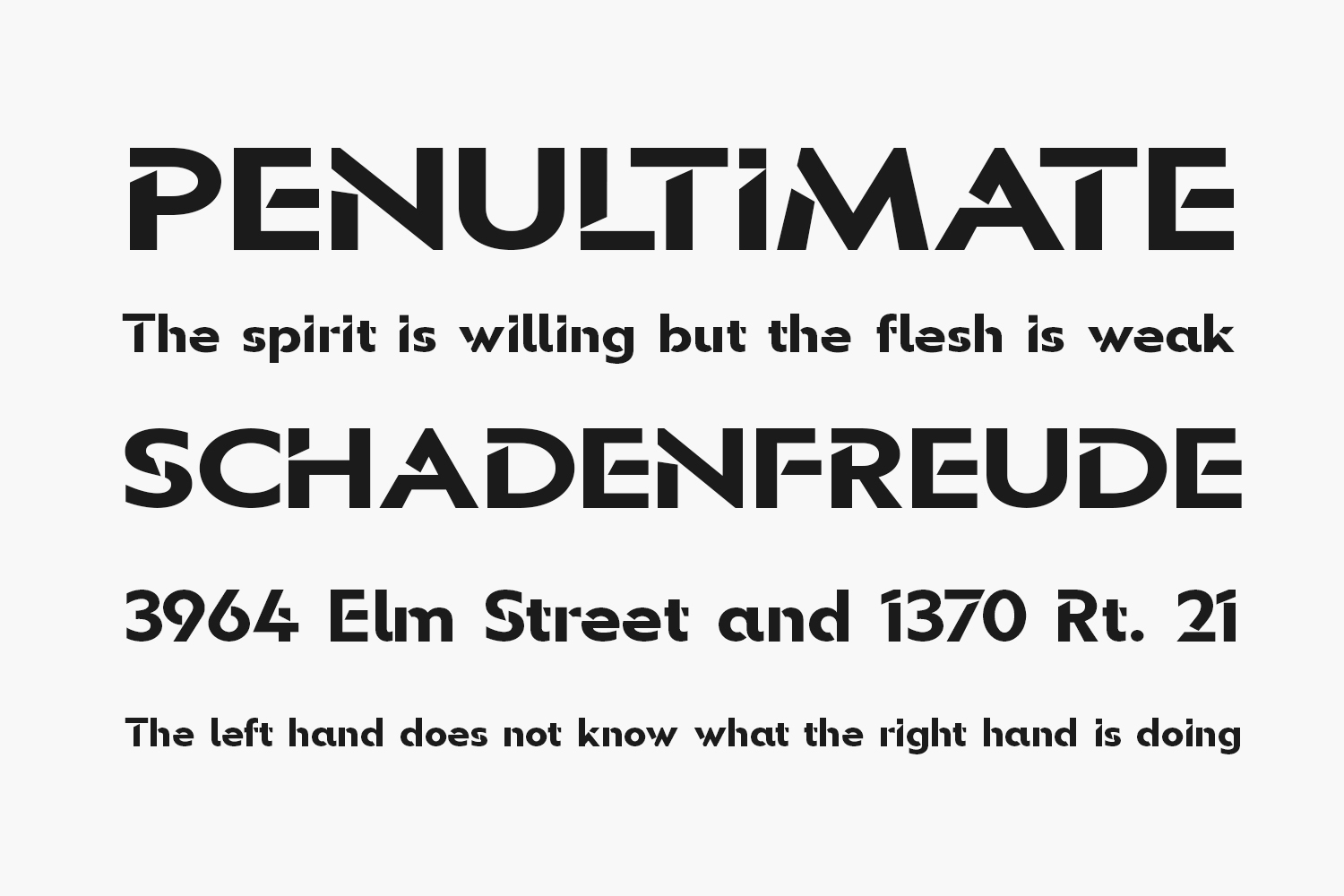
Multiple Ranges Free Font is a cool, bold and thick lettered display font. No matter the topic, this font will be an incredible asset to your fonts’ library, as it has the potential to elevate any creation. Multiple Ranges Free Font was designed by 177Studio and is free for personal use only. Please purchase the full version for commercial use.